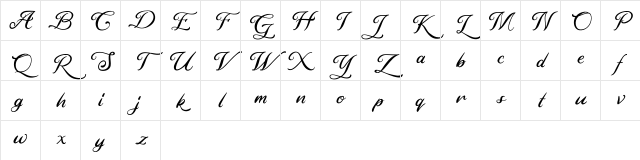
Complete Black Rainbow Script FREE Regular glyph index. Displaying only characters natively supported by Black Rainbow Script FREE Regular font.
Black Rainbow Script FREE flows with the natural rhythm of handwritten lettering, making it ideal for designs that call for warmth and personal expression.
Font Pairing: Combine Black Rainbow Script FREE with a simple geometric sans for maximum contrast - the tension between flowing curves and clean structure is a classic typographic pairing.
Pro Tip: Use Black Rainbow Script FREE for short runs of text - names, titles, or taglines. Extended body copy in script faces tires the eye quickly.